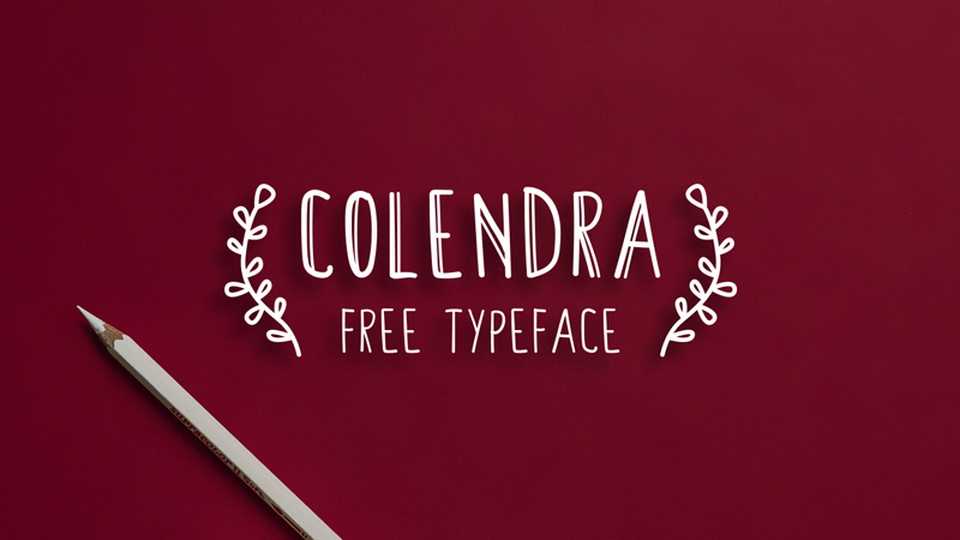
Download Colendra font, a casual handwritten typeface in three styles. Colendra is ideal for crafts, cards, quotes, social media and designs that needs a warm natural feel.
Designer: Szymon Furjan